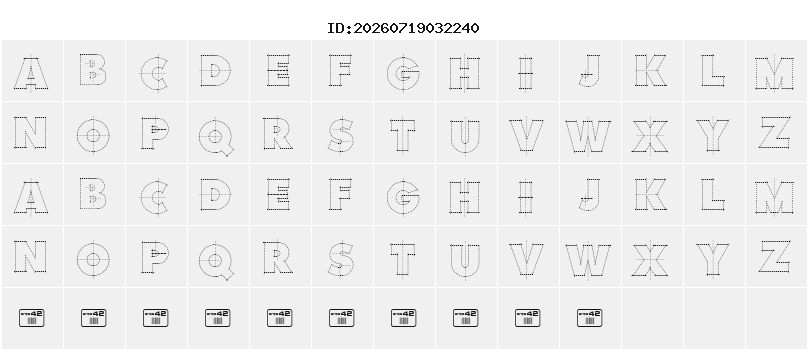
Constructivo Demo Preview
• Font Name: Constructivo Demo
• Version: Version 1.2 Demo
• Designer: release.42 - area42 - Mediendesign
About Constructivo Demo.ttf
Constructivo Demo.ttf is a modern, elegant sans-serif font designed for ultimate readability and visual harmony. Perfect for branding, headlines, web design, and print materials.